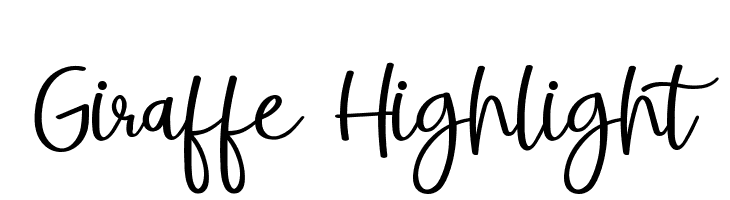
A dynamic and expressive handwritten font with fluid strokes.
A playful, handwritten font with fluid strokes and a whimsical style.
A lively, expressive handwritten font with fluid strokes and bold characters.
A dynamic and expressive handwritten font with fluid, cursive letterforms.
A playful, casual handwritten font with irregular strokes and an organic flow.
A whimsical script font with curly, looping letterforms and decorative flourishes.
A playful, handwritten font with smooth, flowing lines and a casual style.
An elegant, flowing script font with whimsical loops and swirls.
A dynamic and expressive handwritten font with fluid strokes and a natural flow.